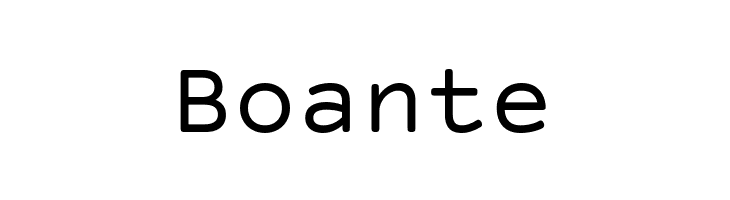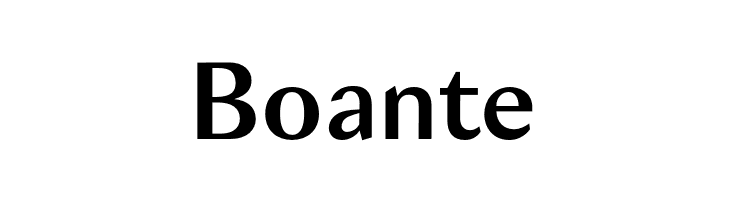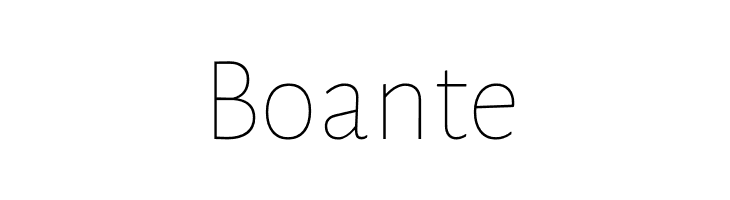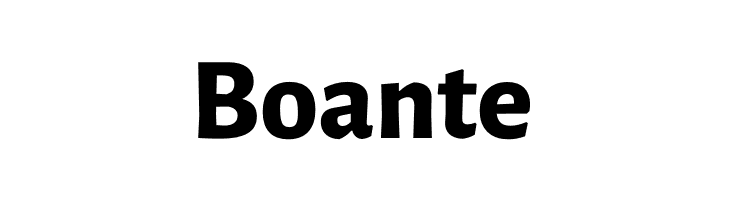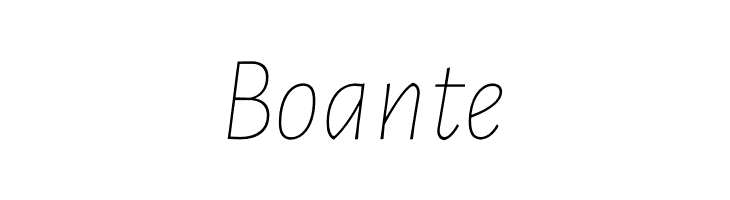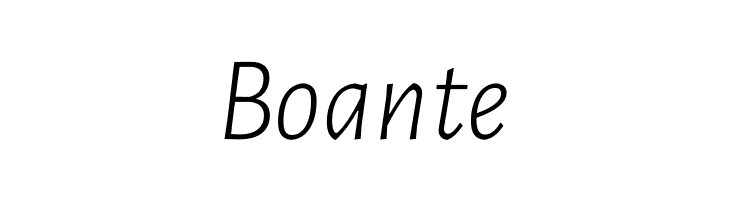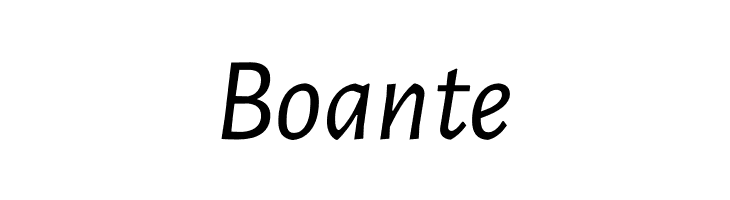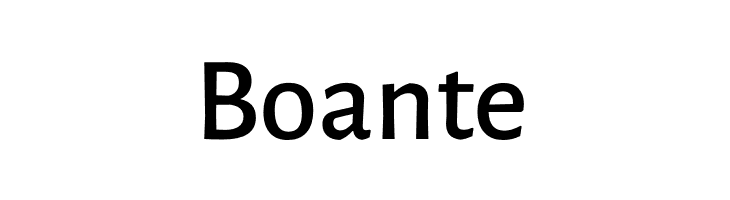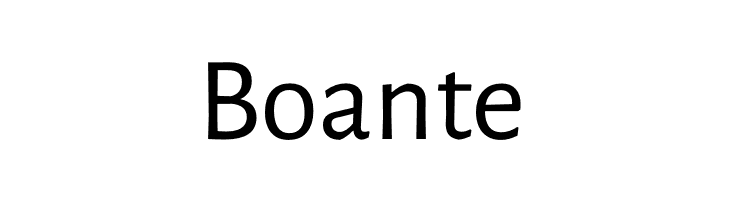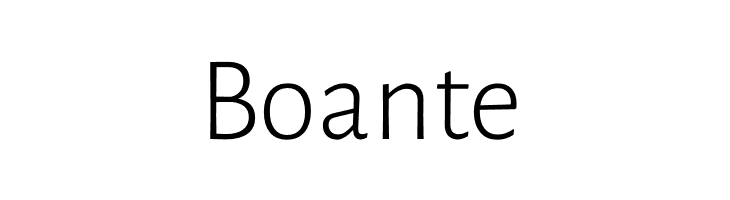
A clean, monospaced font perfect for coding and technical documentation.
A modern sans-serif font with geometric shapes and uniform stroke width.
A bold, decorative font with rounded serifs and consistent spacing, perfect for headlines.
A bold, decorative font with vintage flair and rounded serifs.
A semi-bold italic font with a modern, elegant style and medium contrast.
A sleek, modern extra-light font with a minimalist design.
A bold and robust font with thick strokes and a strong presence.
A sleek, extra-light italic font with a modern and elegant style.
A sleek, light, and italicized font with a modern and elegant style.
A modern, italic font with sleek and elegant character design.
A bold, modern font with clean lines and strong presence.
A modern sans-serif font with a semi-bold weight and slightly condensed width.
A clean and modern sans-serif font with excellent readability.
A bold, italic font with high contrast and modern appeal.
A modern, light sans-serif font with clean lines and a professional appearance.
A bold and italic font with strong, dynamic strokes and a slight slant.
A modern, monospaced font with clean lines and consistent spacing, ideal for coding.
A minimalist set of line-based icons with a modern and clean design.
A bold serif typeface with high contrast and classic appeal.
A bold, italic serif font with strong strokes and a dynamic, classic appearance.
A bold, rounded sans-serif font with smooth curves and uniform stroke width.
A bold, playful handwritten font with dynamic strokes and a whimsical style.
A bold, lined serif font with a dynamic and decorative style.
A modern, elegant font with elongated, sharp strokes and high contrast.
A playful, dotted inline font with a whimsical cartoonish style.
An outlined serif font with a bold, vintage-inspired style.
A bold, dynamic font with thick strokes and slightly condensed letterforms.
A decorative dingbat set with mid-century modern and atomic age motifs.
A modern dashed inline font with a geometric structure.
A rough, hand-drawn font with elongated, narrow letters and an inline style.
A modern monospaced font designed for coding with clear, distinct characters.
A clean, modern monospaced font ideal for coding and technical documentation.
A modern sans-serif font with clean lines and a professional appearance.